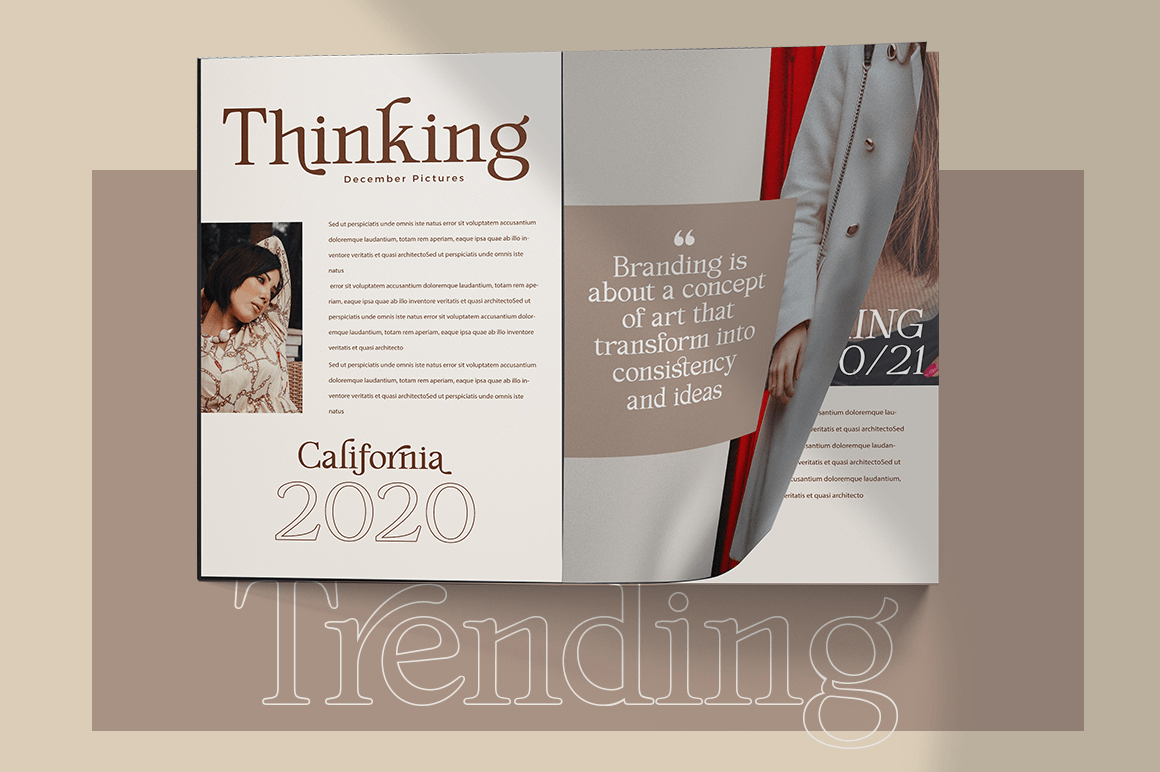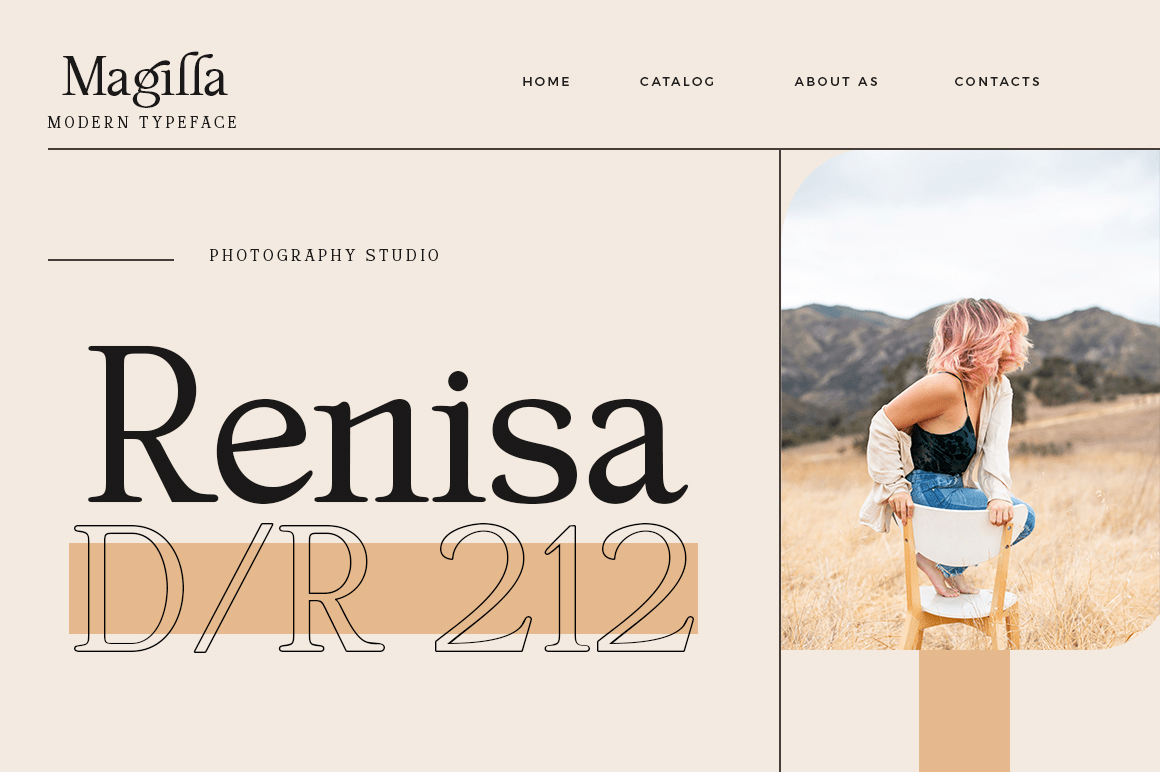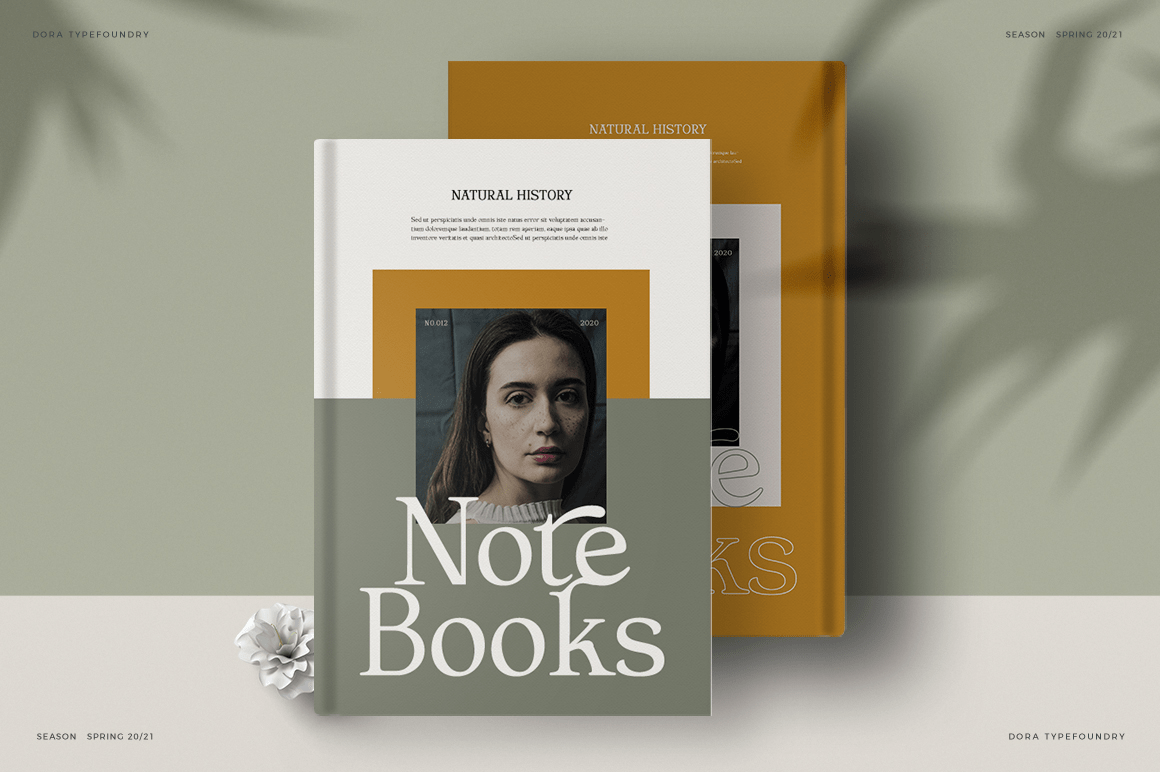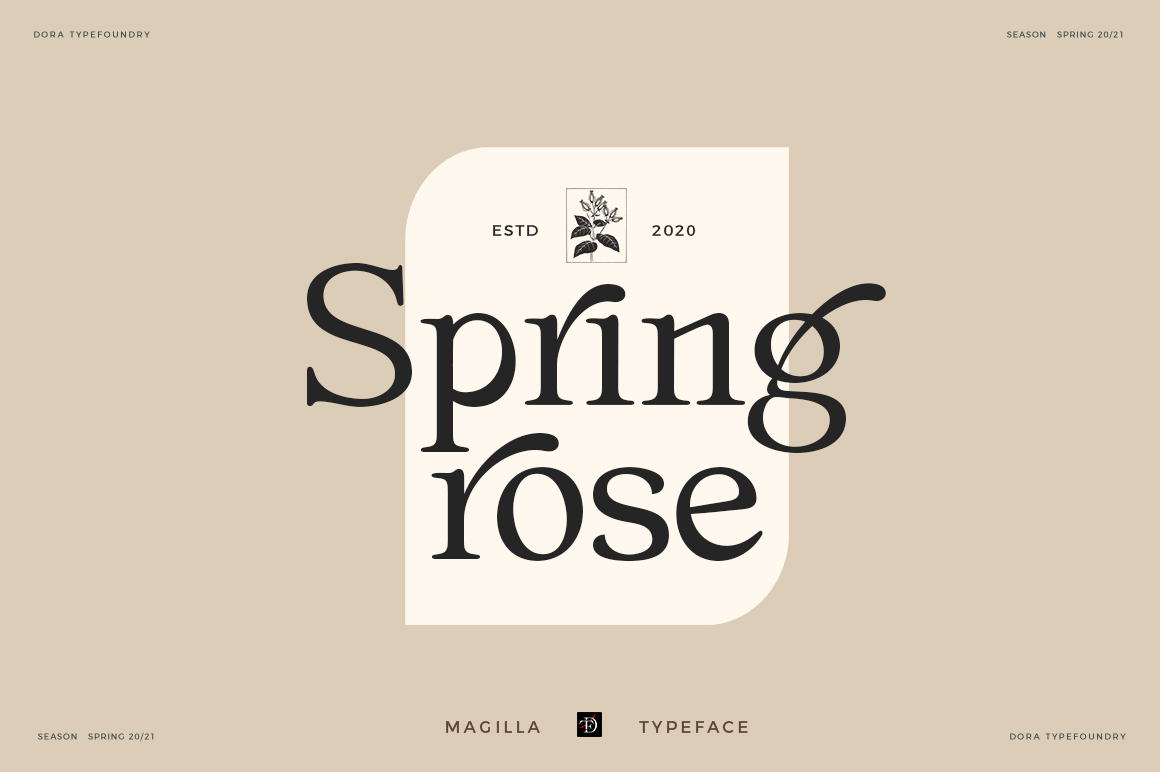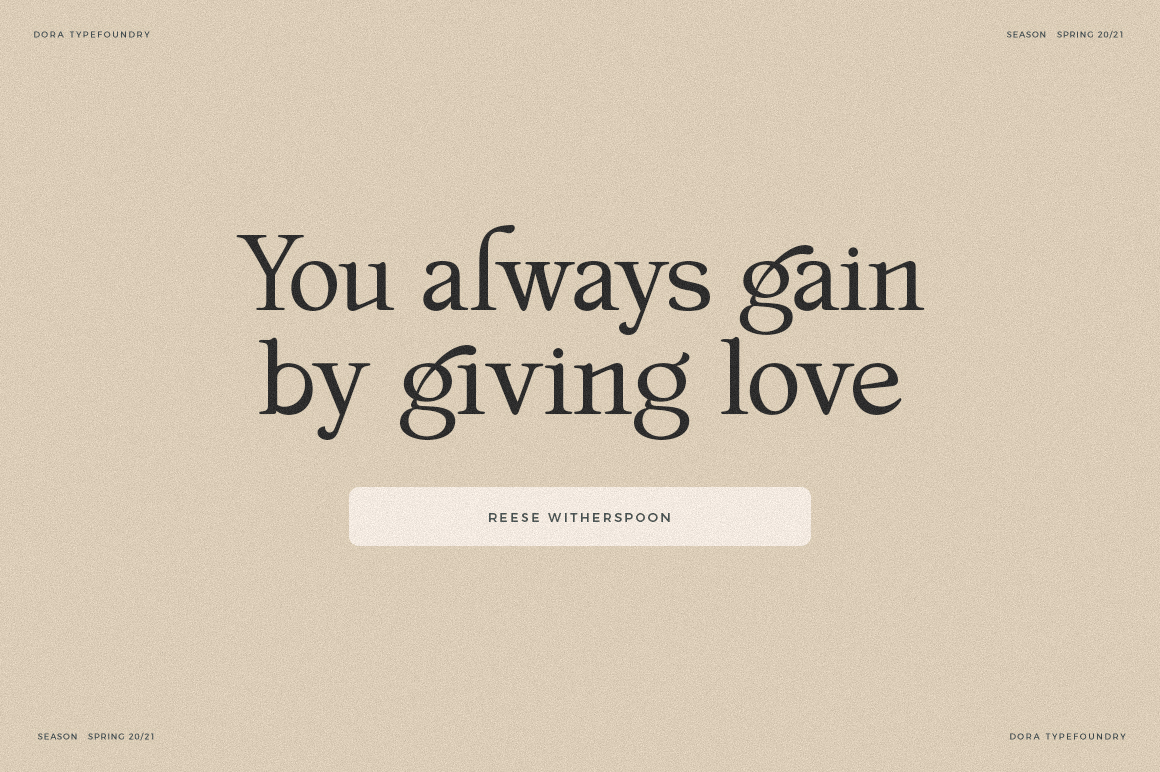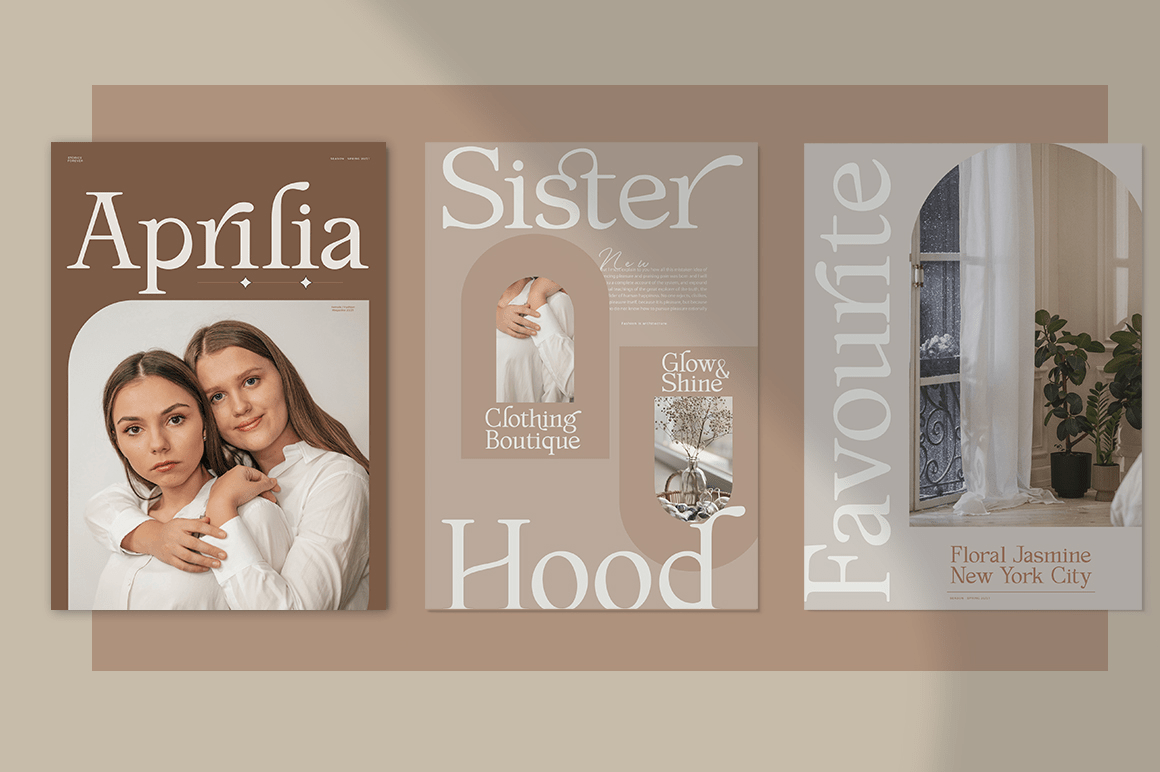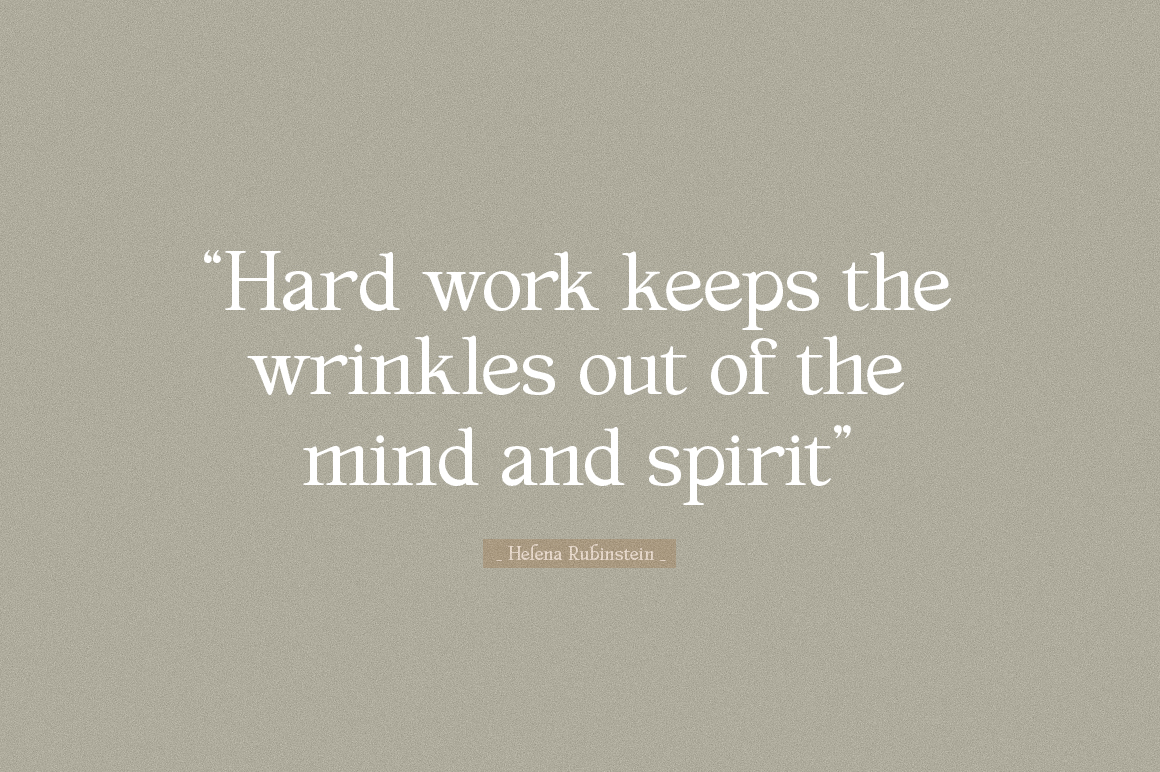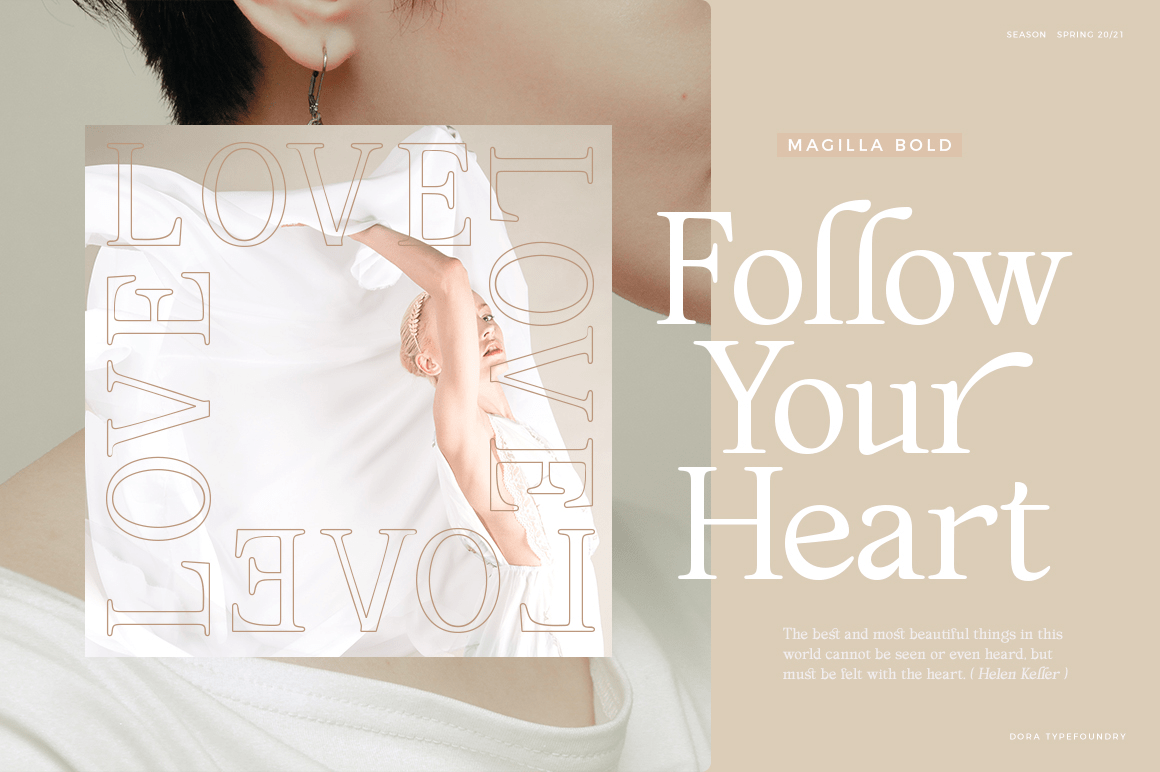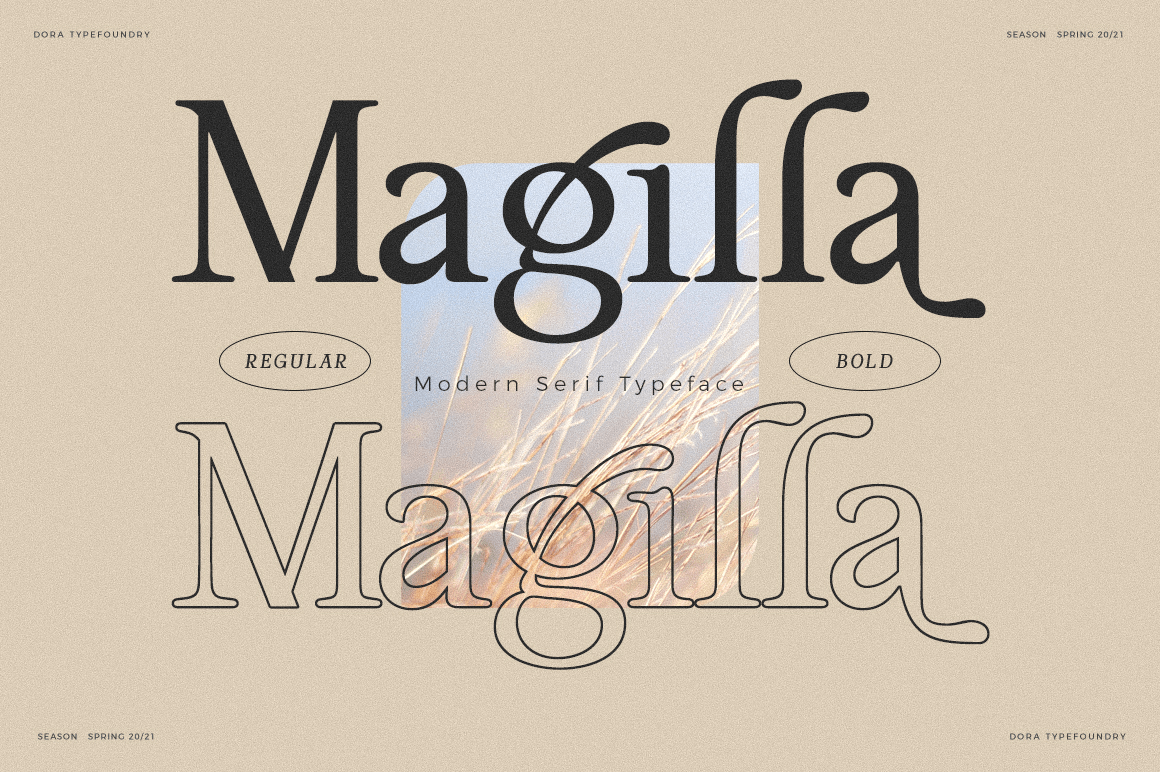
Magilla
Magilla is a new elegant serif font that will add a touch of luxury and style to your projects. This is a very versatile font that works well in large and small sizes. Perfect for editorial projects, magazine headers, Logo designs, Clothing Branding,…